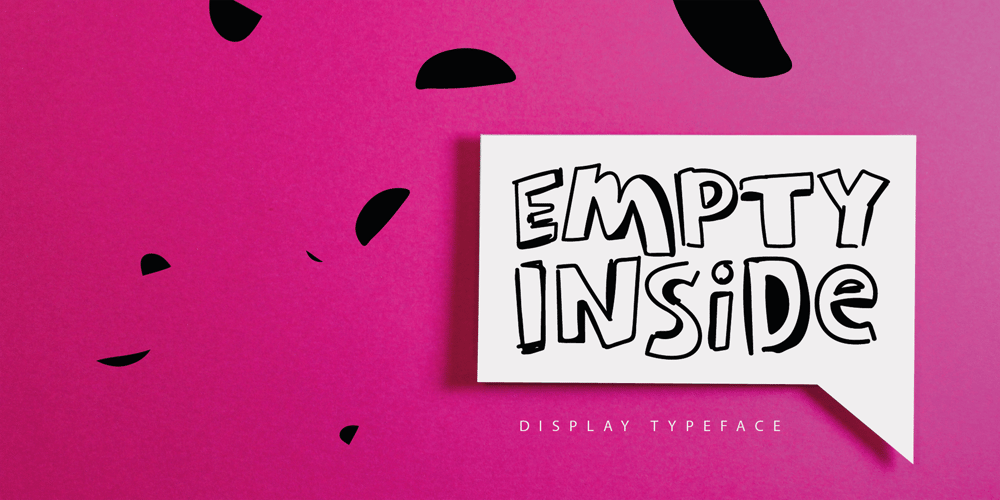
Empty Inside Font Family was designed by Ekaterina Chernysheva and published by Chekart. Empty Inside contains 1 styles and family package options. Empty Inside is a kids playful font. It comes with uppercase and lowercase characters, a set of punctuation marks, numbers, Cyrillic characters, an alternative set of characters and numbers, ligatures and multilingual support.Ideal for logos, quotes, posters, branding projects, product packaging, t-shirt, book cover, greeting cards and applicable for any graphic design.